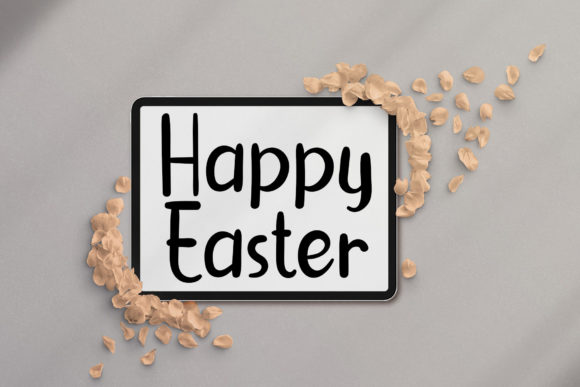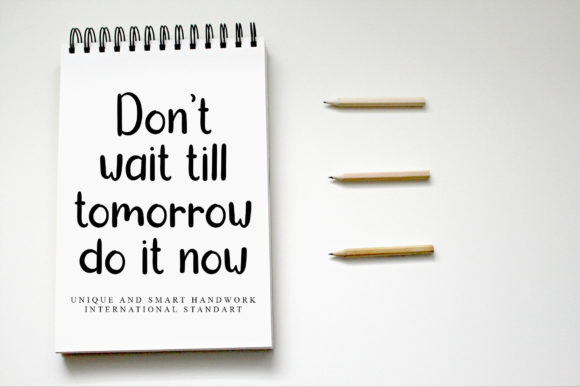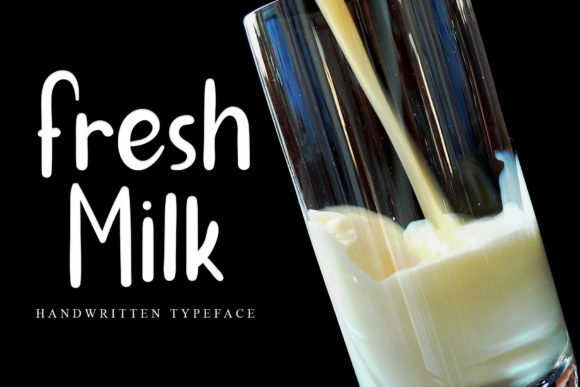
About Little Ghost Font
Little Ghost is a unique and elegant handwritten font. It looks beautiful on a variety of designs requiring a personalized style, such as wedding invitations, thank you cards, weddings, greeting cards, logos and so on.